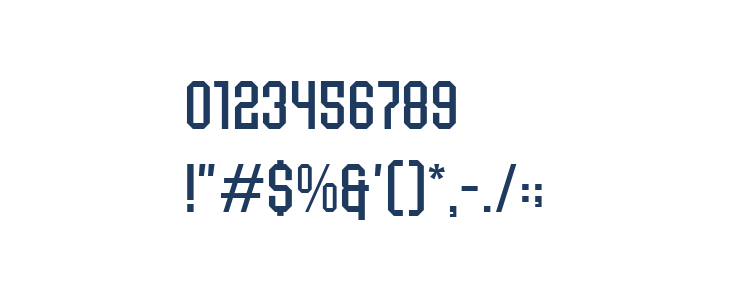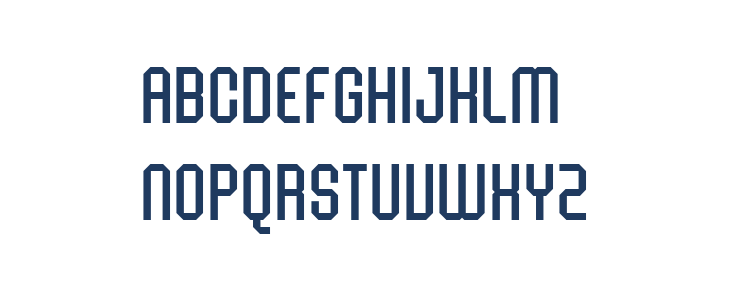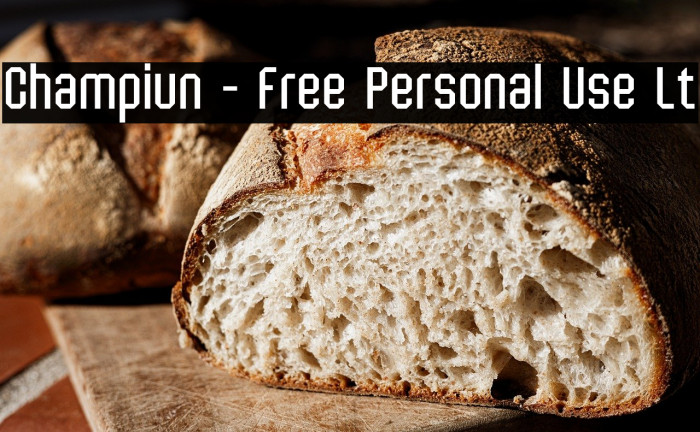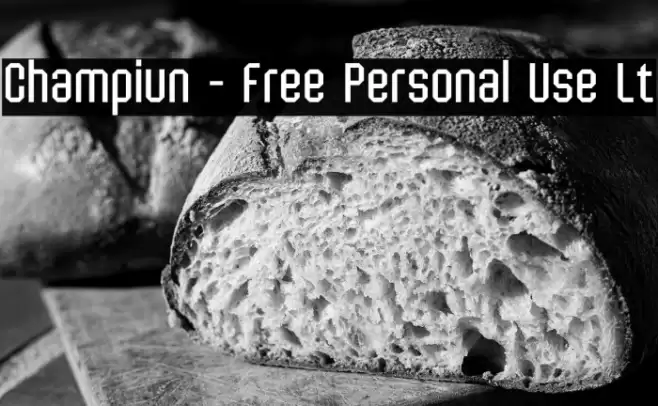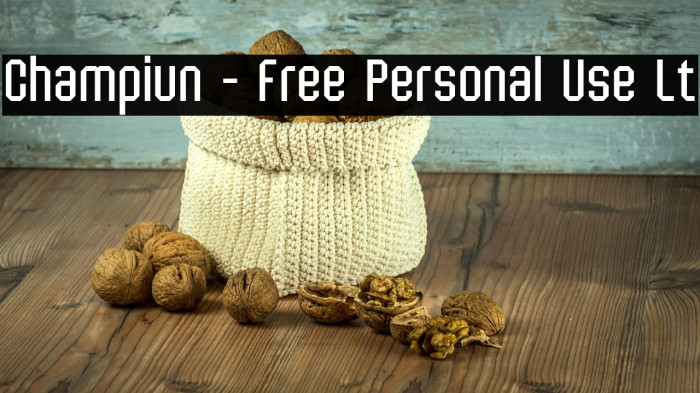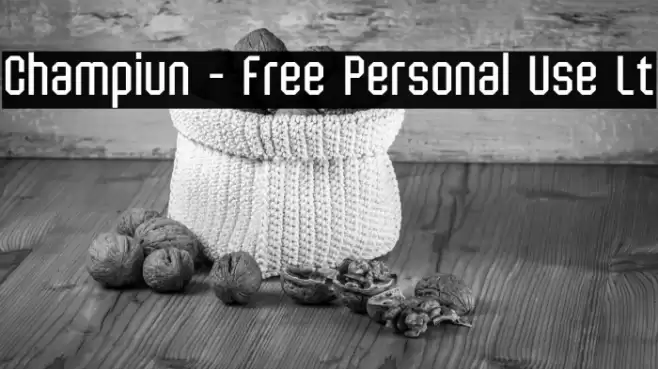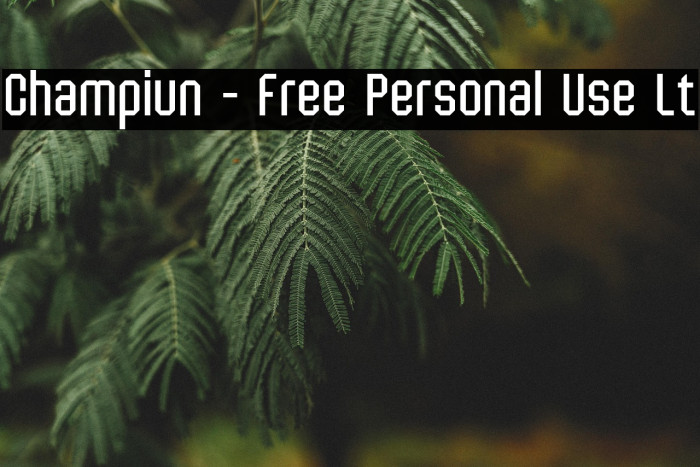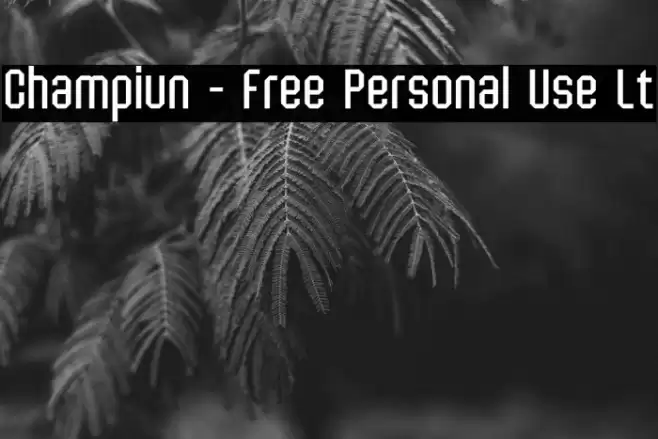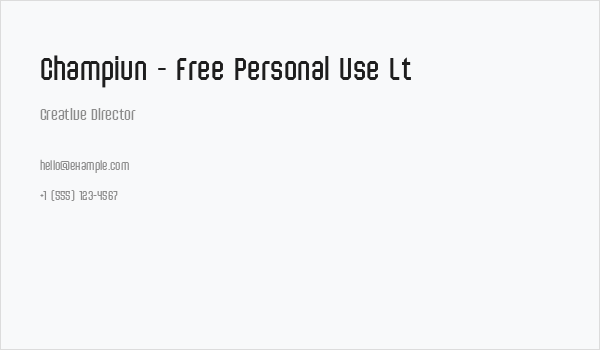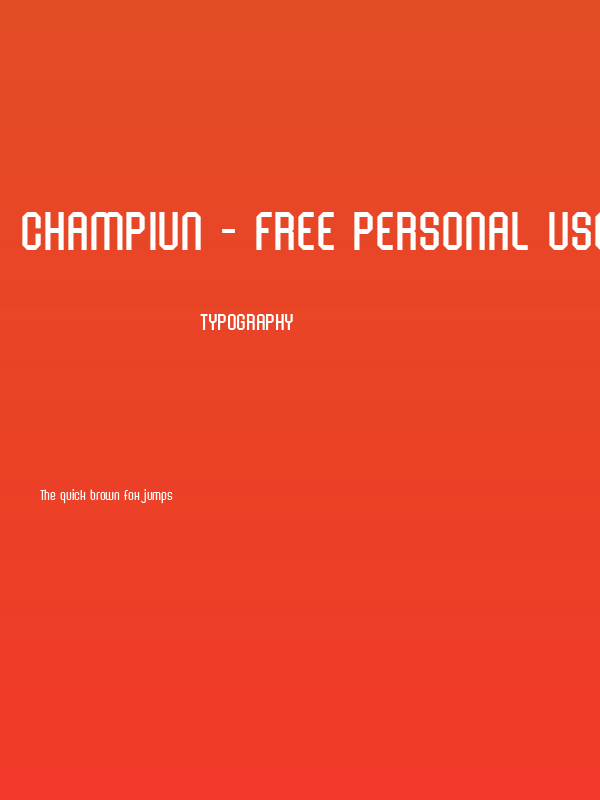
Champiun - Free Personal Use Lt Font
Champiun - Free Personal Use Lt Description
A geometric, pixel-inspired sans-serif font with a blocky, digital appearance.
| Overall Style | Modern, Digital, Geometric |
| Use Case | Headlines, Digital interfaces, Tech branding |